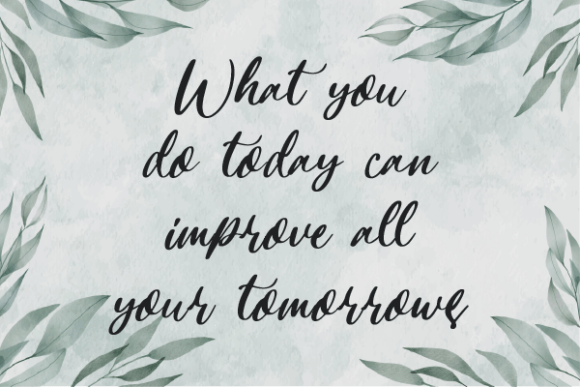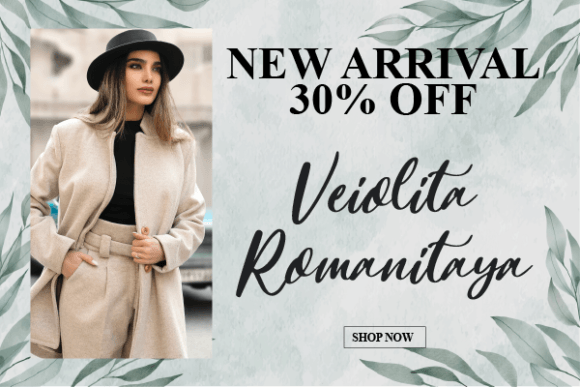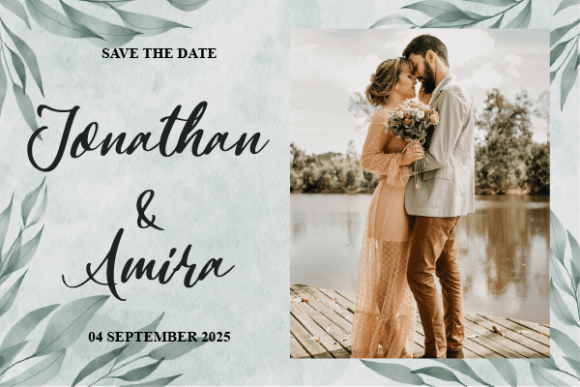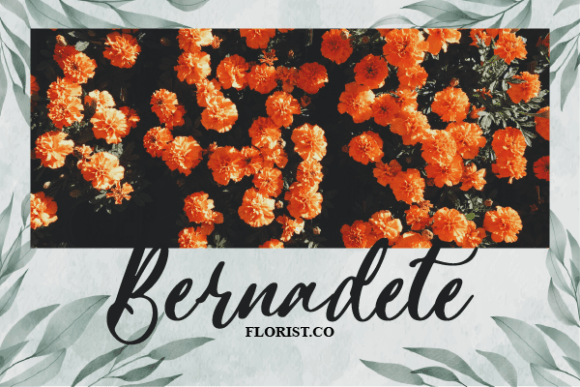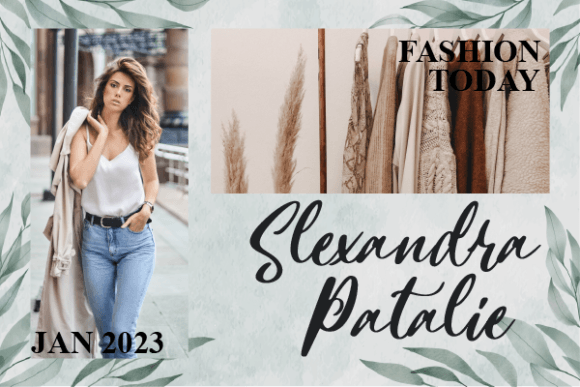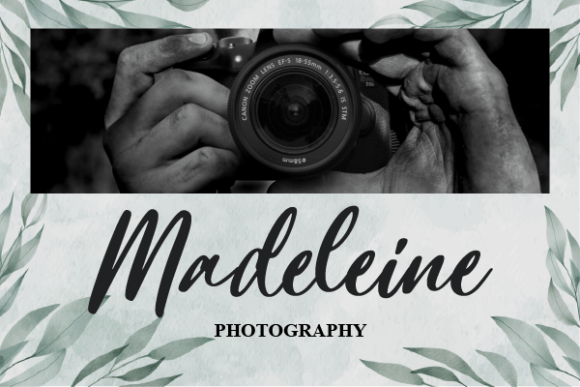
Introduction to Judith Bunting Font
As designers, we’ve all been there – staring at a blank canvas, eager to bring our creative vision to life. But sometimes, all it takes is the right font to spark that extra bit of inspiration. For me, that font is the enchanting Judith Bunting Font. Its delicate, cursive lines evoke a sense of whimsy and romance, making it the perfect addition to any design project.
Whether you’re working on a wedding invitation, a birthday card, or a social media graphic, the Judith Bunting Font is sure to add a touch of elegance and sophistication. With its high-quality design and transparent background, this font is a valuable resource for any designer looking to elevate their creative project.
So, what makes the Judith Bunting Font so special? In this article, we’ll delve into the world of this charming font and explore its many uses, from free downloads to expert tips on how to make the most of its unique features.
Key Features of Judith Bunting Font
- Includes a wide range of characters, including uppercase and lowercase letters, numerals, and special symbols.
- Designed with a unique, elegant style that sets it apart from other fonts, making it perfect for creative projects that require a touch of sophistication.
- Created by a professional font designer, ensuring that the font is optimized for high-quality printing and digital display.
Honest Review: Judith Bunting Font
- ✨ Unique Character Set: The font boasts an extensive character set, including a wide range of symbols and punctuation marks, making it perfect for designers who need to add a touch of personality to their work.
- ✨ High-Quality Design: The font’s design is top-notch, with clean lines and a sophisticated aesthetic that’s sure to impress.
- ⚠️ Limited Font Sizes: While the font looks great at standard sizes, I found that it becomes a bit pixelated when scaled up or down.
- ⚠️ Not Ideal for Body Text: Due to its unique character set and design, the font may not be the best choice for body text, as it can be difficult to read at smaller sizes.
Overall, I’m impressed with the Judith Bunting Font, and I’d definitely recommend it for designers working on creative projects that require a touch of elegance and sophistication.
Tips for Getting the Most Out of Judith Bunting Font
Use the Judith Bunting Font with a transparent background to create a seamless design.
Experiment with different font sizes and styles to add visual interest to your project.
Combine the Judith Bunting Font with other design elements to create a unique and eye-catching design.
The Judith Bunting Font is perfect for: